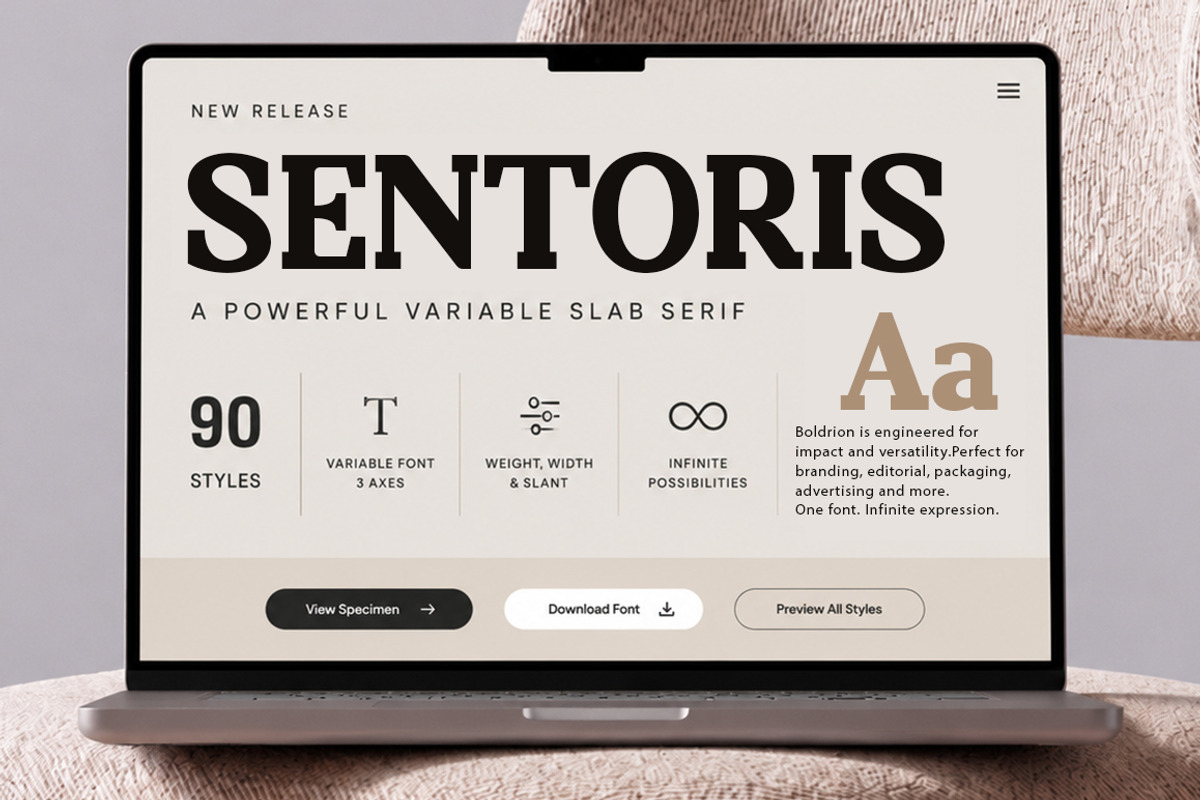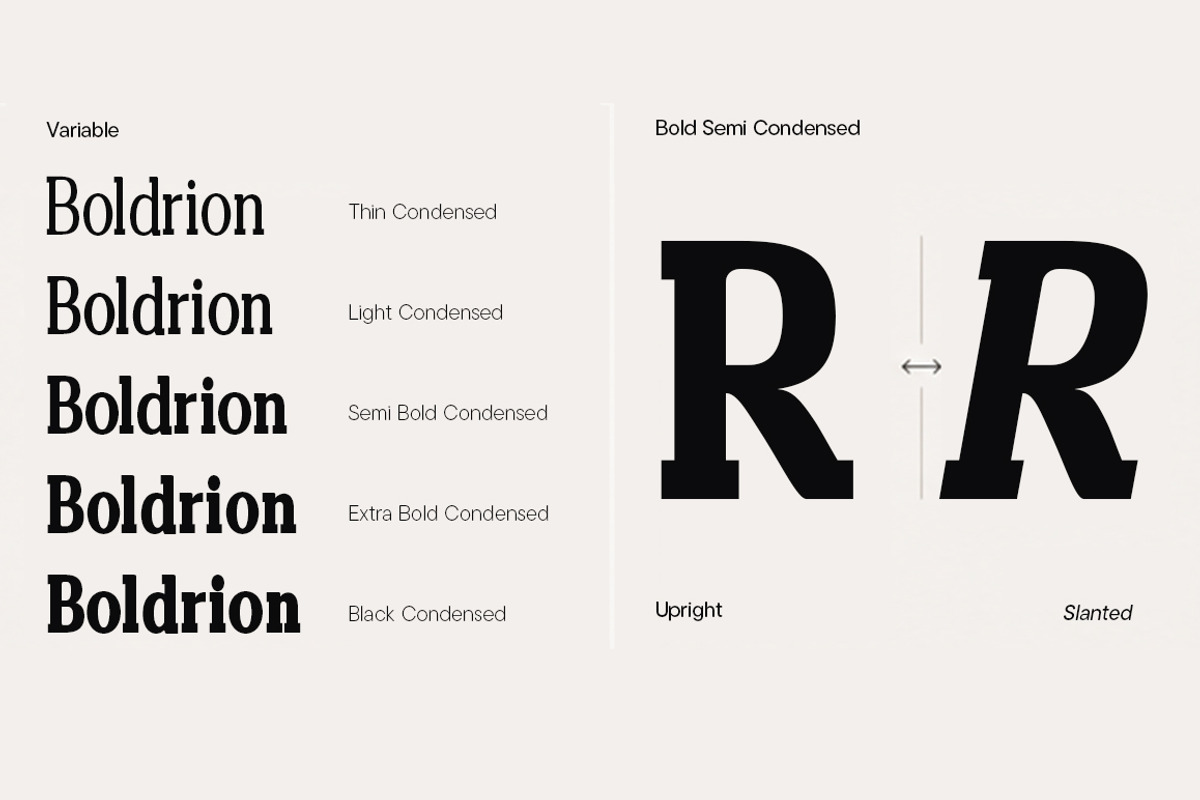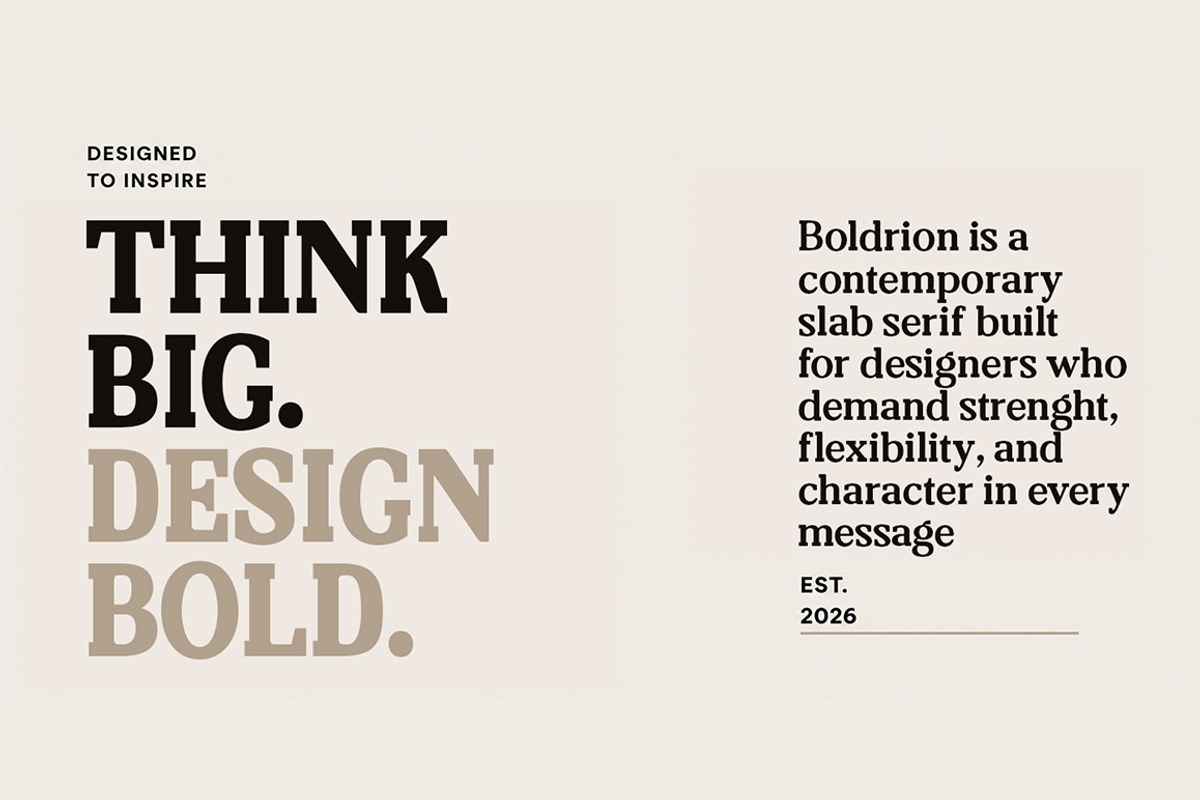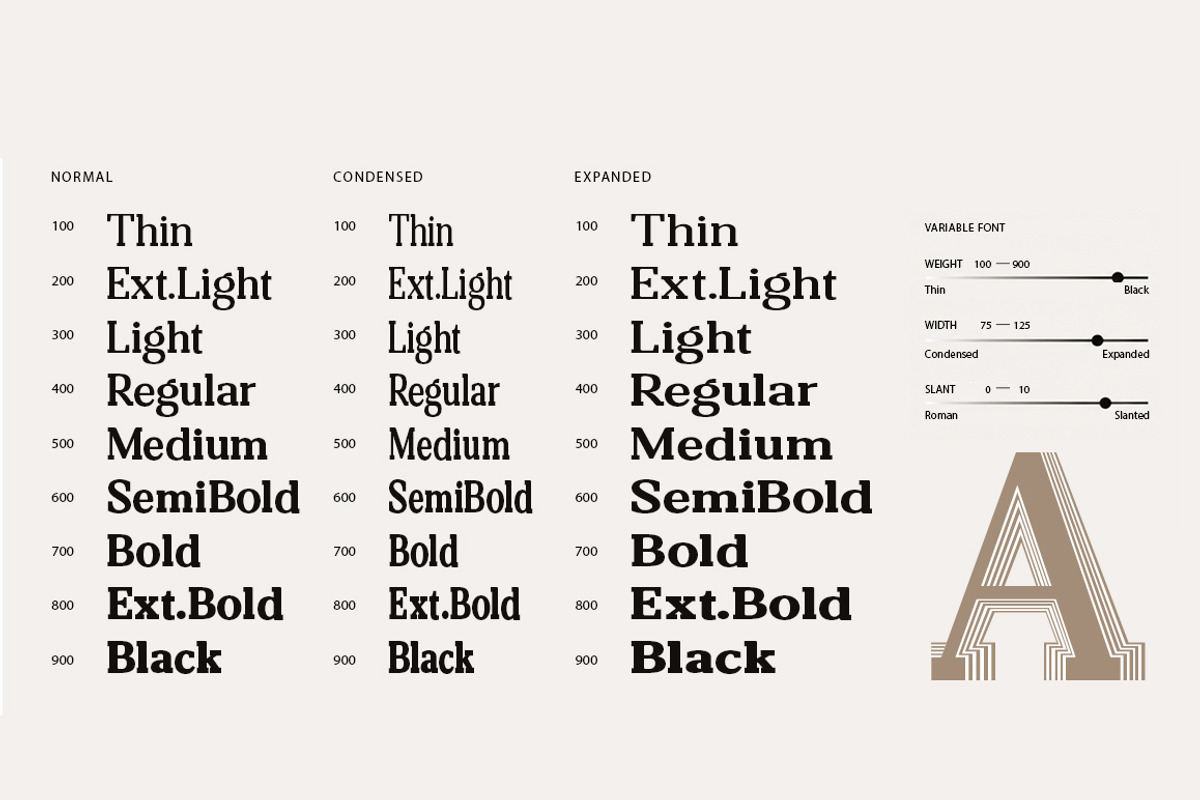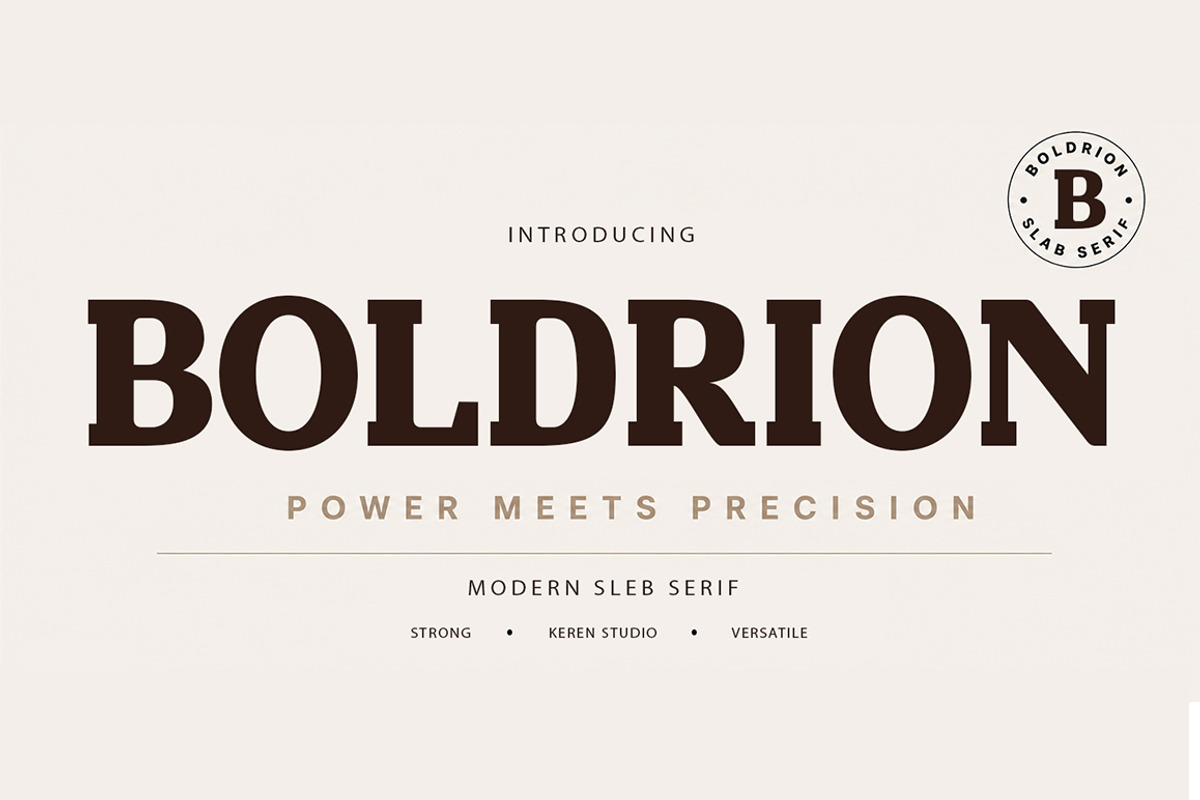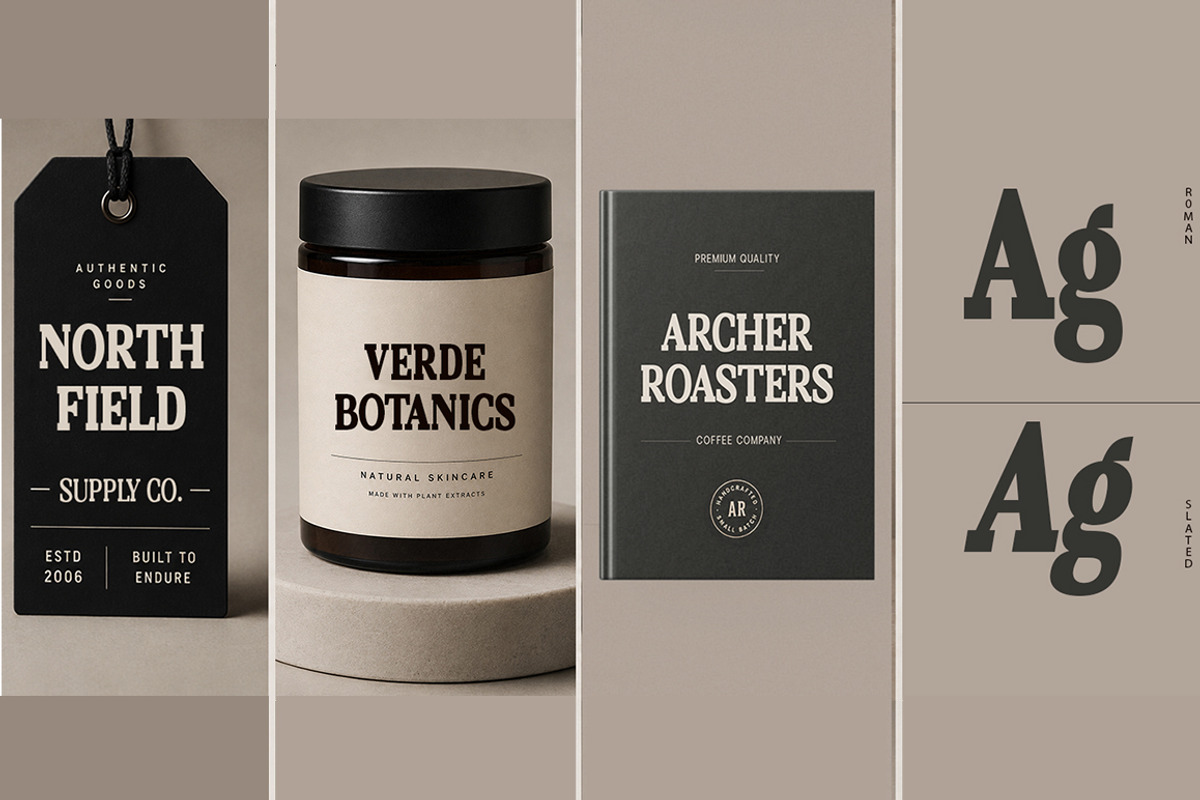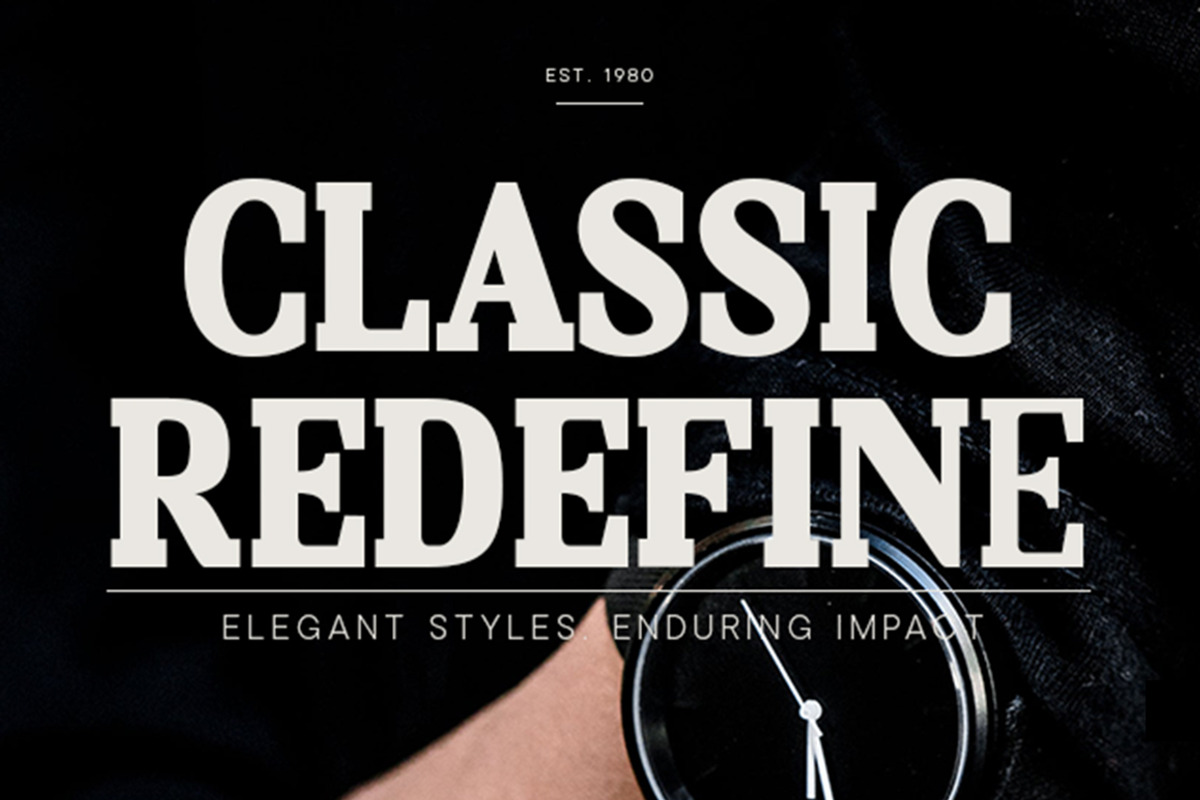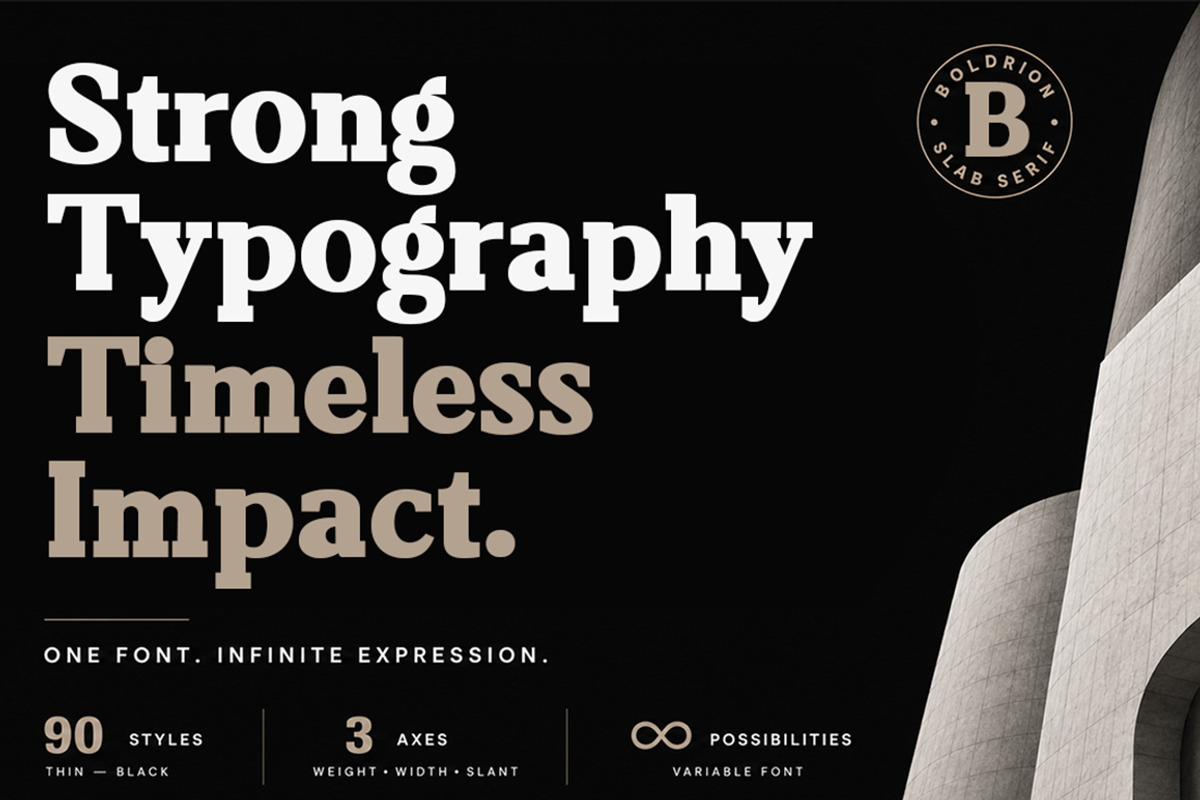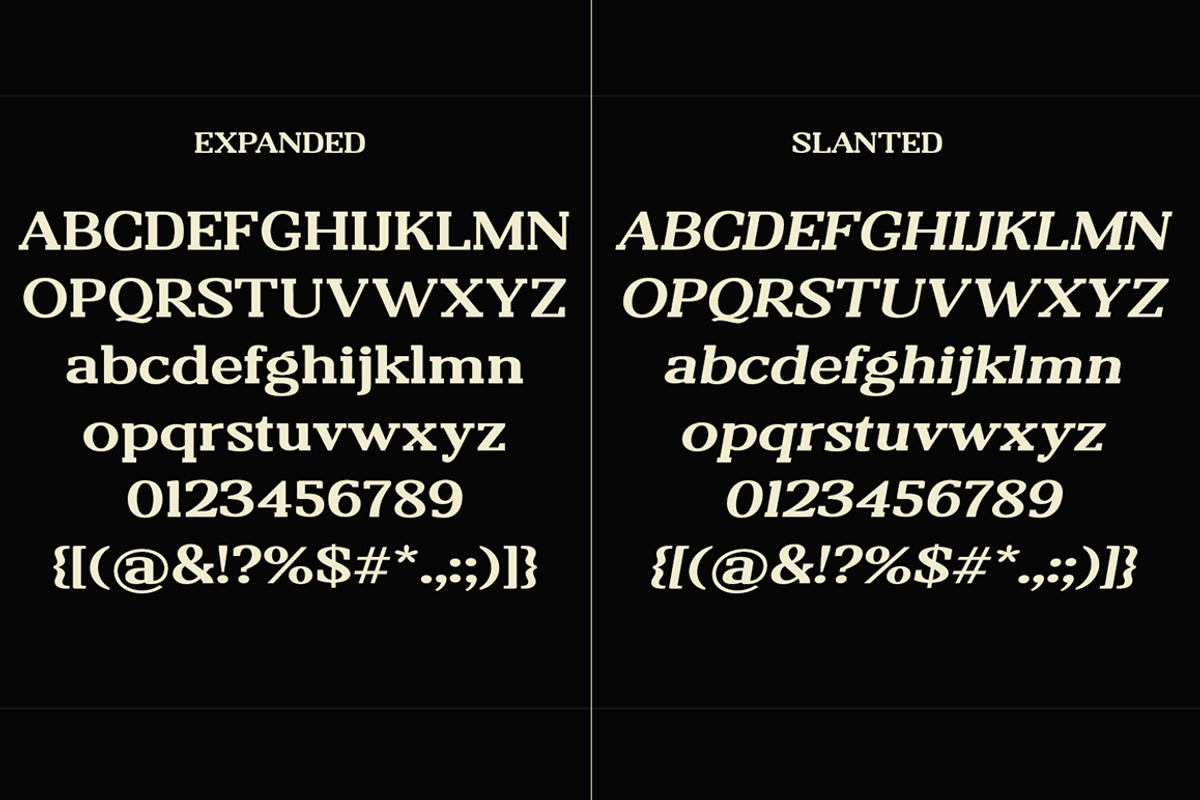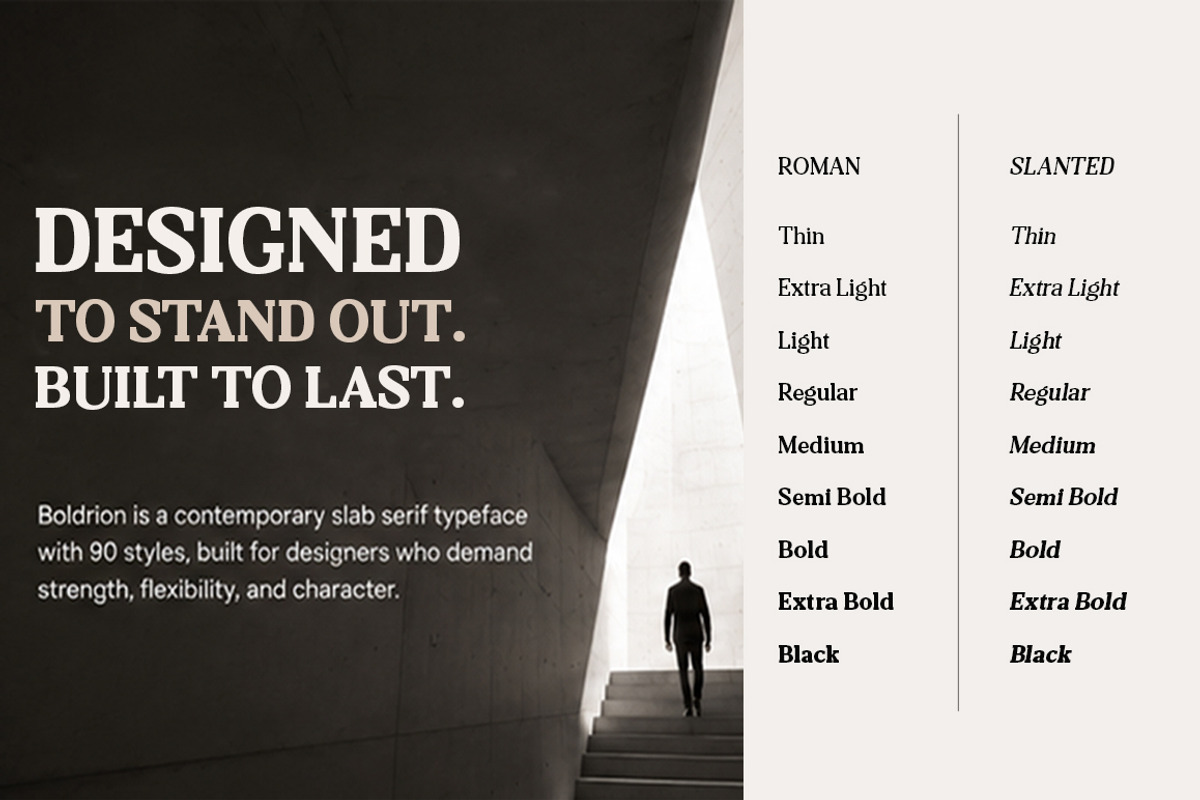
Boldrion
Boldrion is a modern serif superfamily that blends timeless elegance with contemporary precision. Designed with refined proportions, sharp serif details, and excellent readability, it delivers a sophisticated look across both print and digital applications.
Featuring an impressive 90 styles, Sleb Serif offers an extensive range of weights from Thin to Black, with matching Upright and Italic styles throughout the family. This comprehensive selection provides designers with exceptional flexibility for creating consistent and expressive typography.
Whether you're designing editorial layouts, premium branding, logos, packaging, advertising, websites, or user interfaces, Sleb Serif adapts effortlessly to a wide variety of creative projects. Each weight has been carefully crafted to maintain visual harmony, ensuring smooth transitions across the entire type family.